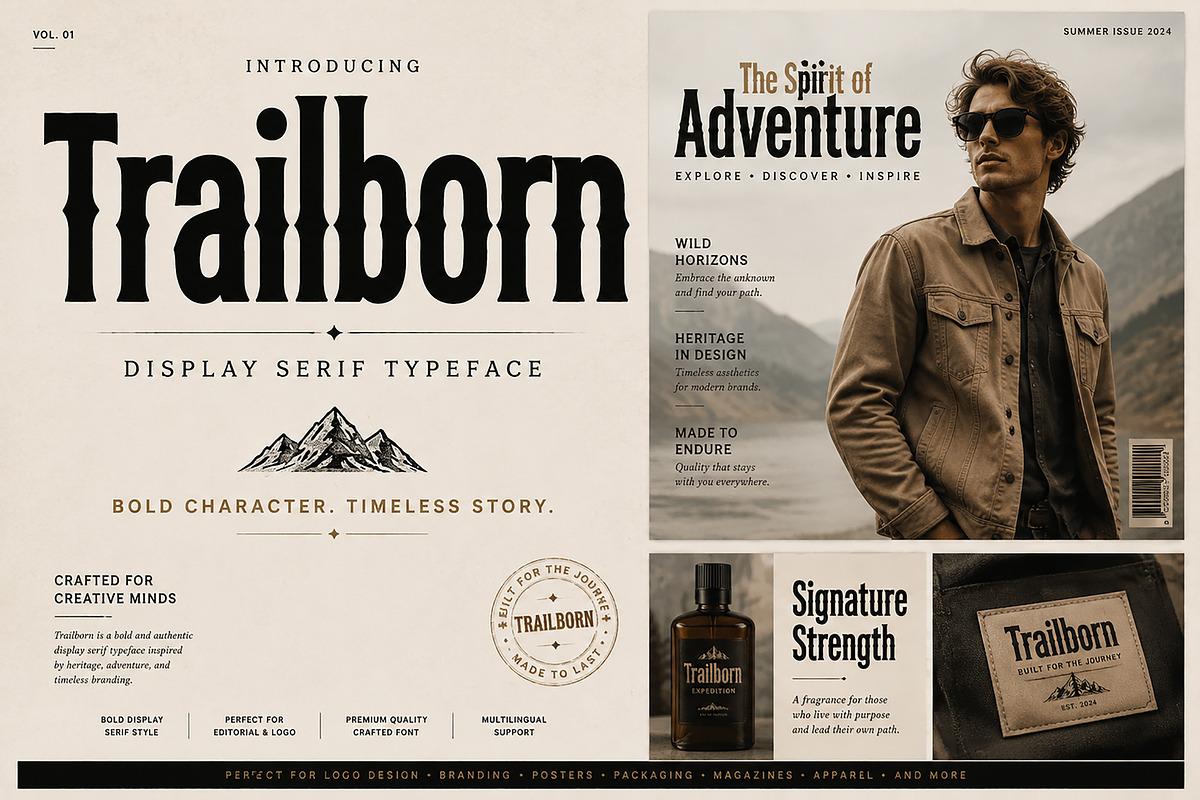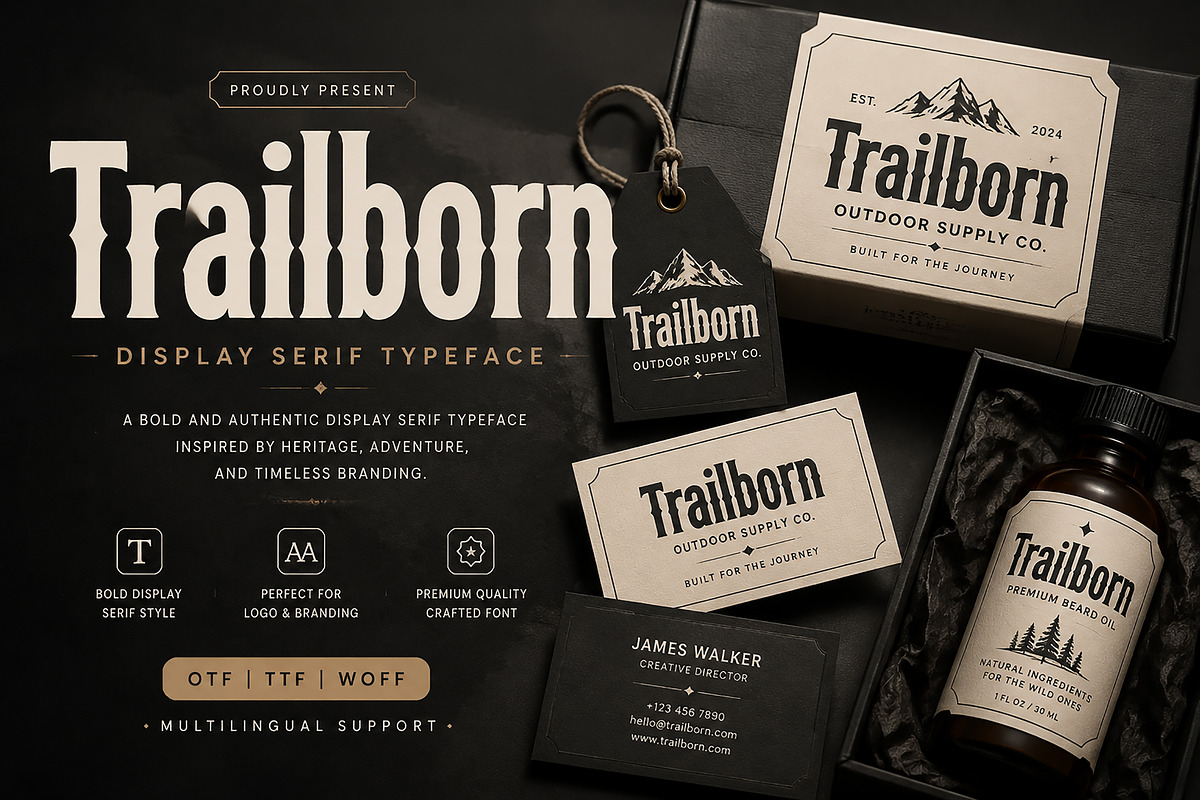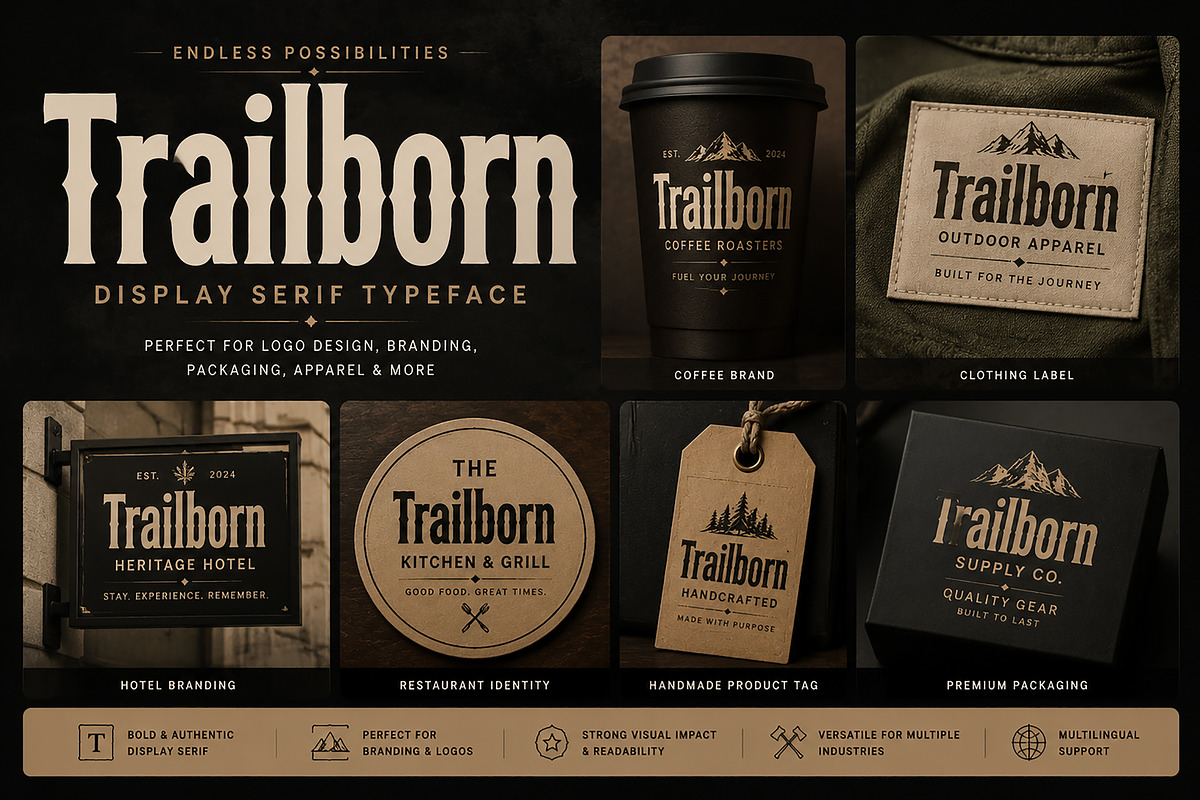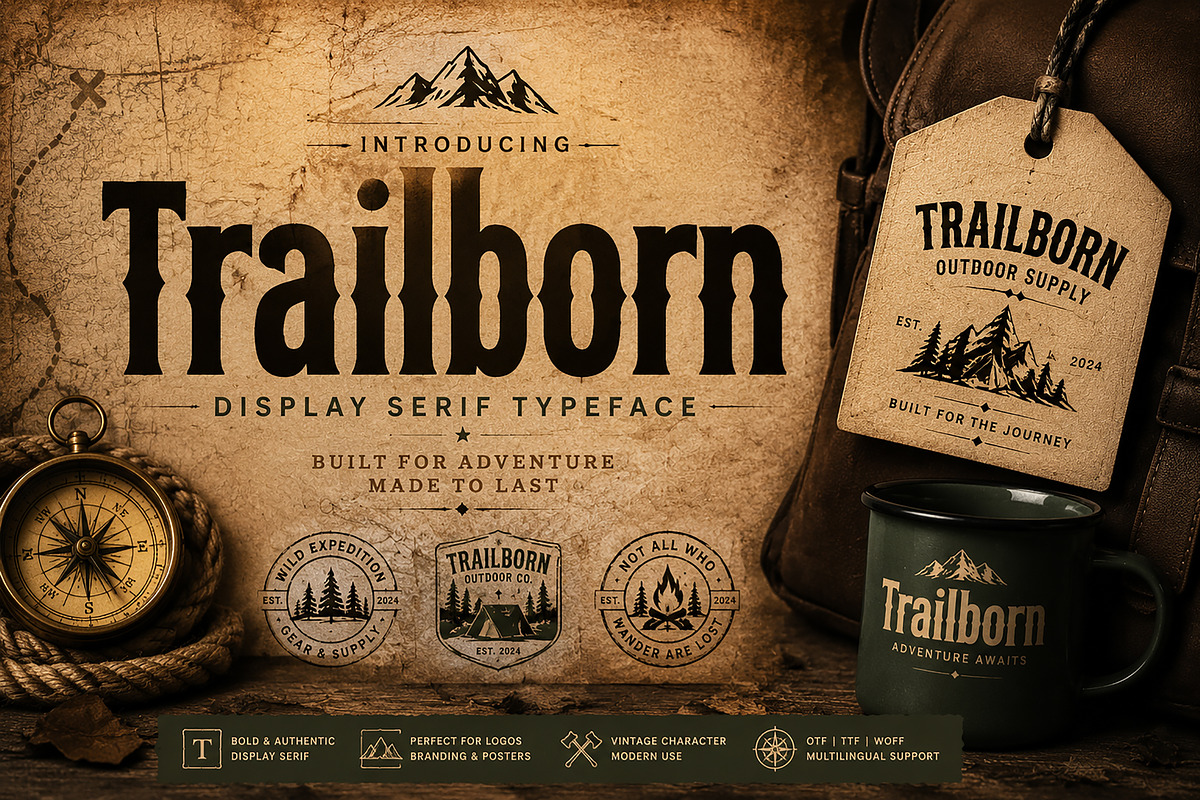
Trailborn
Trailborn – Bold Display Serif Typeface
Trailborn is a bold and distinctive display serif typeface designed to bring a strong, timeless, and premium character to your creative projects. Inspired by heritage aesthetics, adventure branding, vintage editorial design, and luxury visual identity, Trailborn combines classic serif details with a modern bold presence.
Perfect for creating impactful logos, brand identities, packaging designs, fashion labels, posters, magazine covers, outdoor brands, restaurant identities, and premium product designs.
With its strong letterforms and elegant personality, Trailborn is made for designers who want their typography to feel confident, memorable, and professional.
Logo Design & Branding
Luxury Brand Identity
Fashion Labels
Outdoor & Adventure Brands
Editorial & Magazine Layouts
Posters & Headlines
Product Labels
Restaurant & Coffee Branding
Vintage Inspired Designs
Merchandise & Apparel
✔ Bold Display Serif Style
✔ Premium & Modern Vintage Character
✔ Strong Headline Appearance
✔ Perfect for Branding Projects
✔ High Readability at Large Sizes
✔ Professional Typeface Design